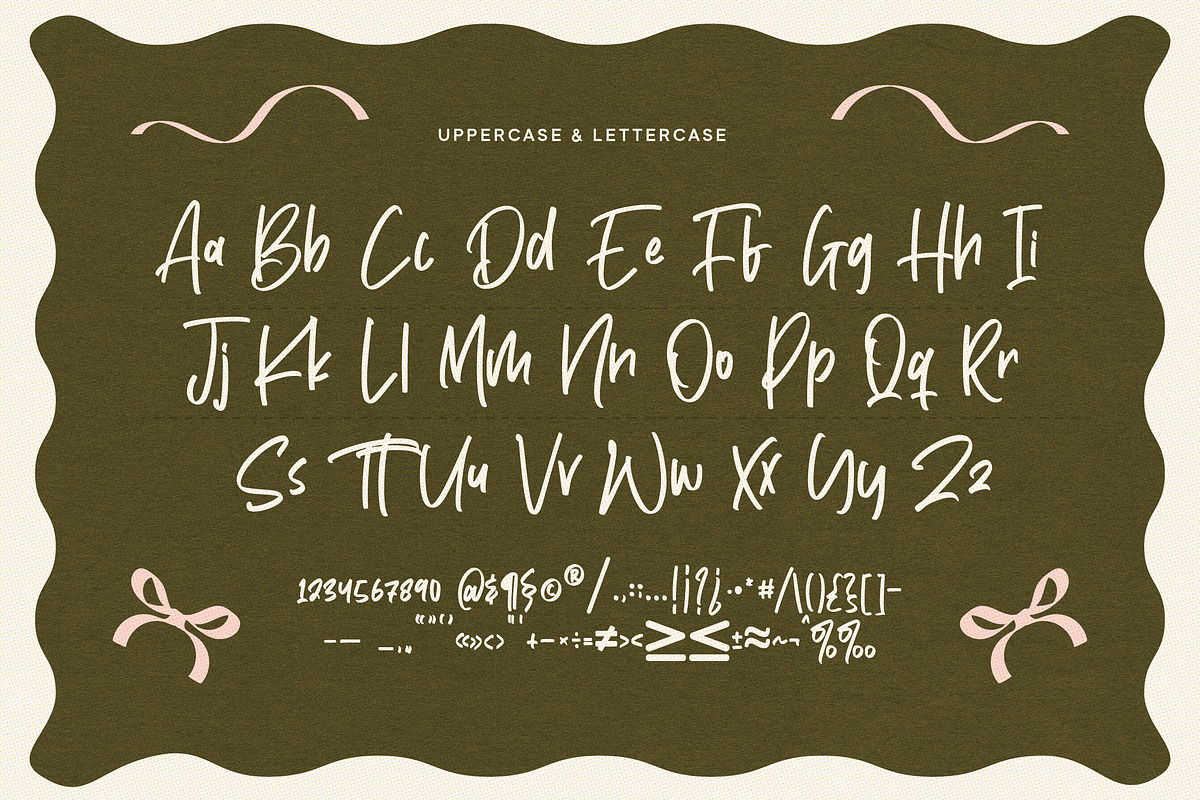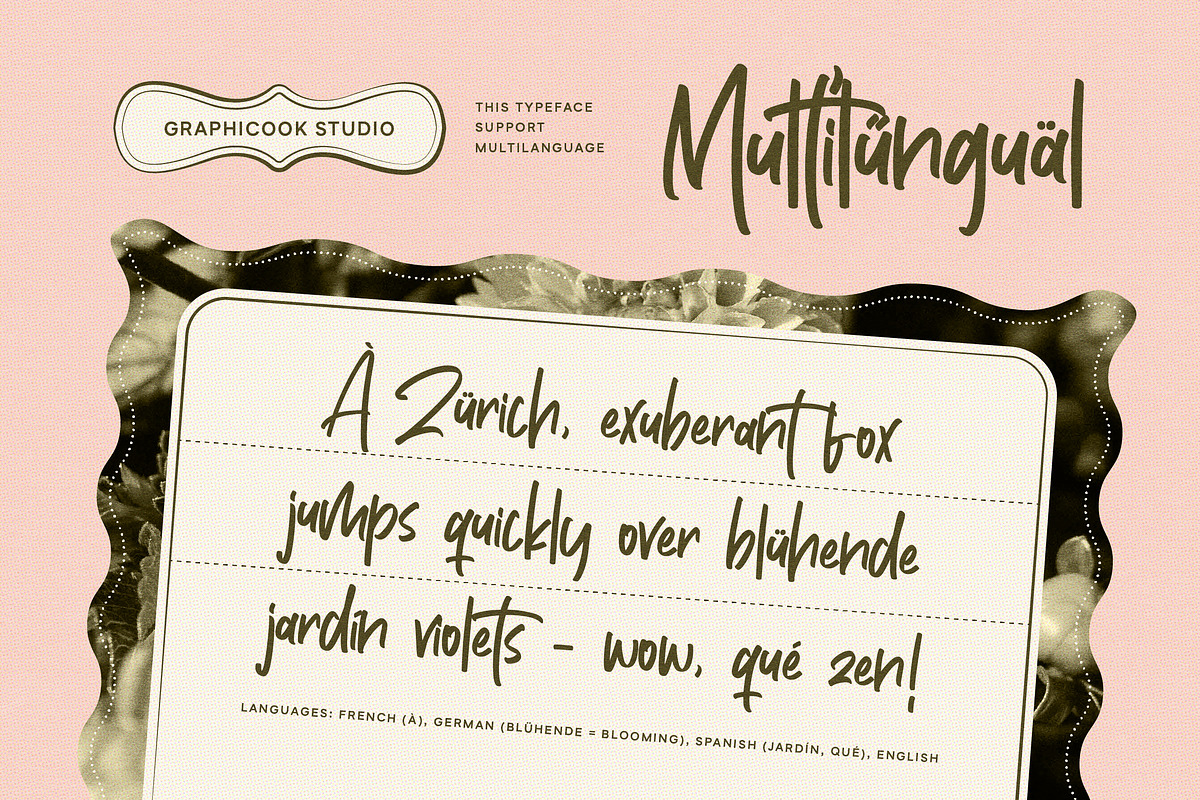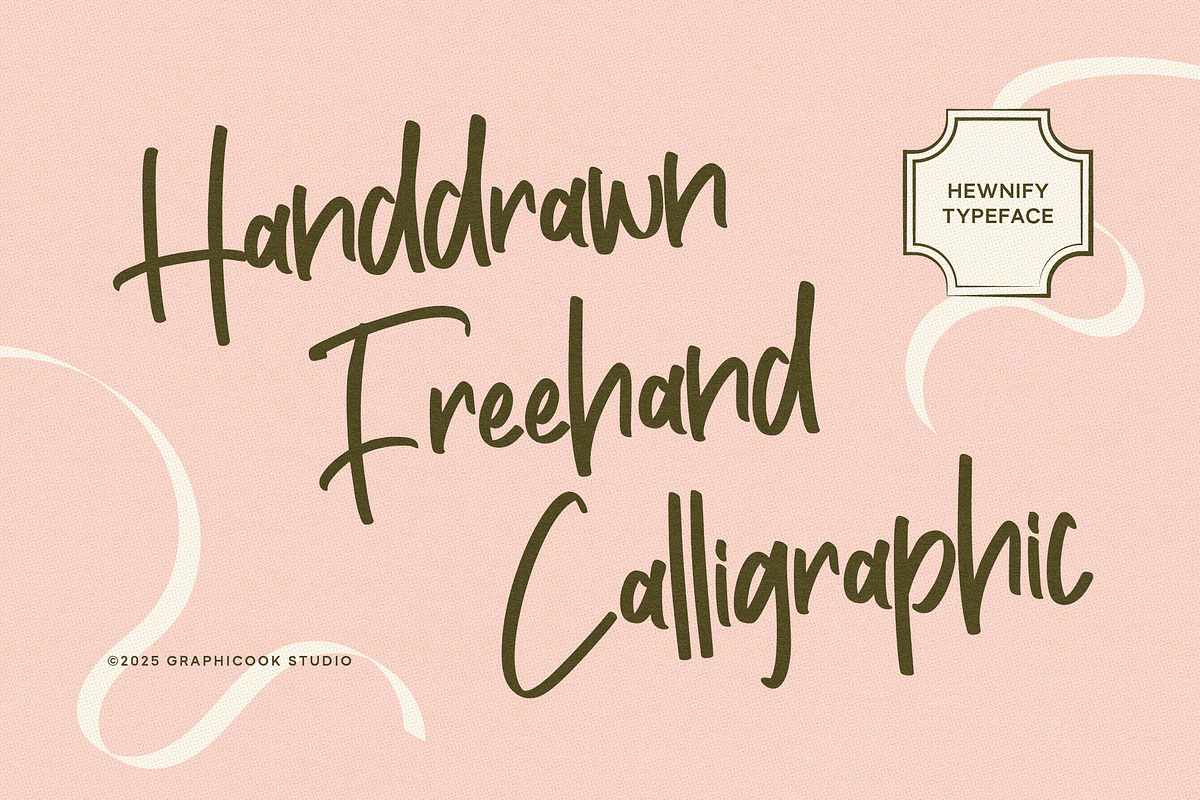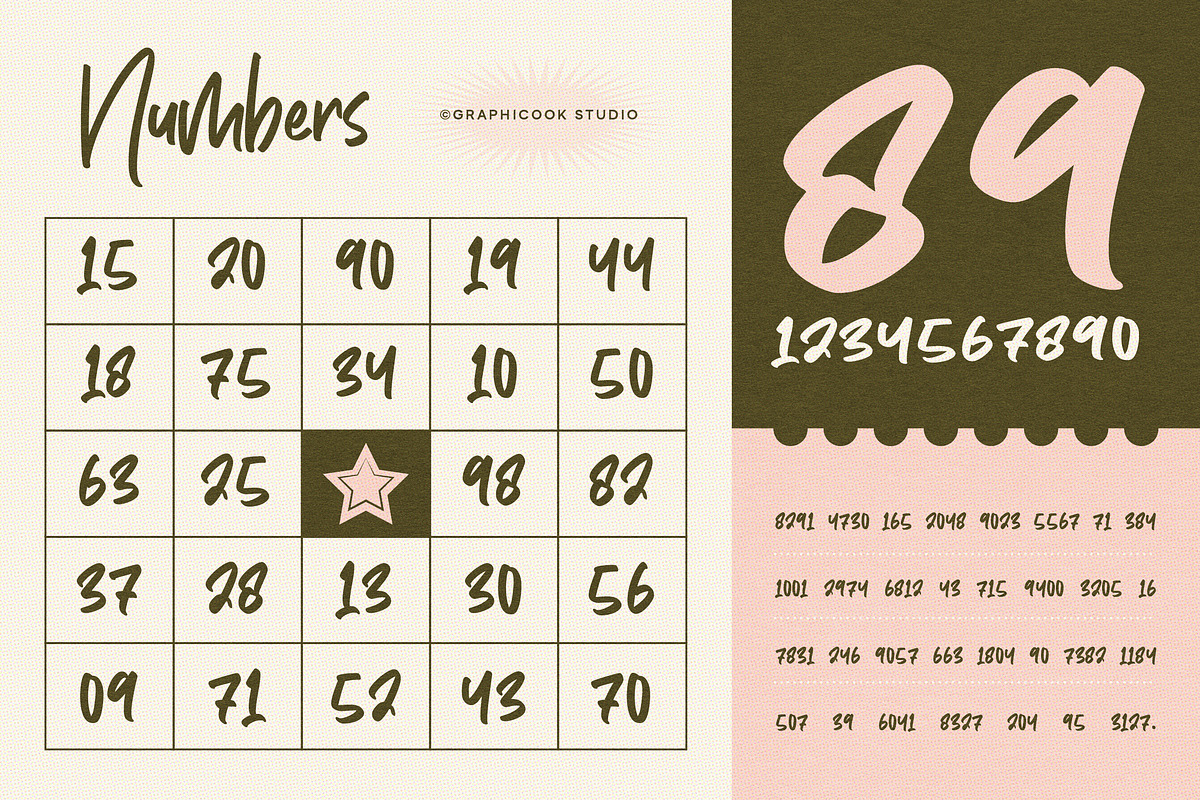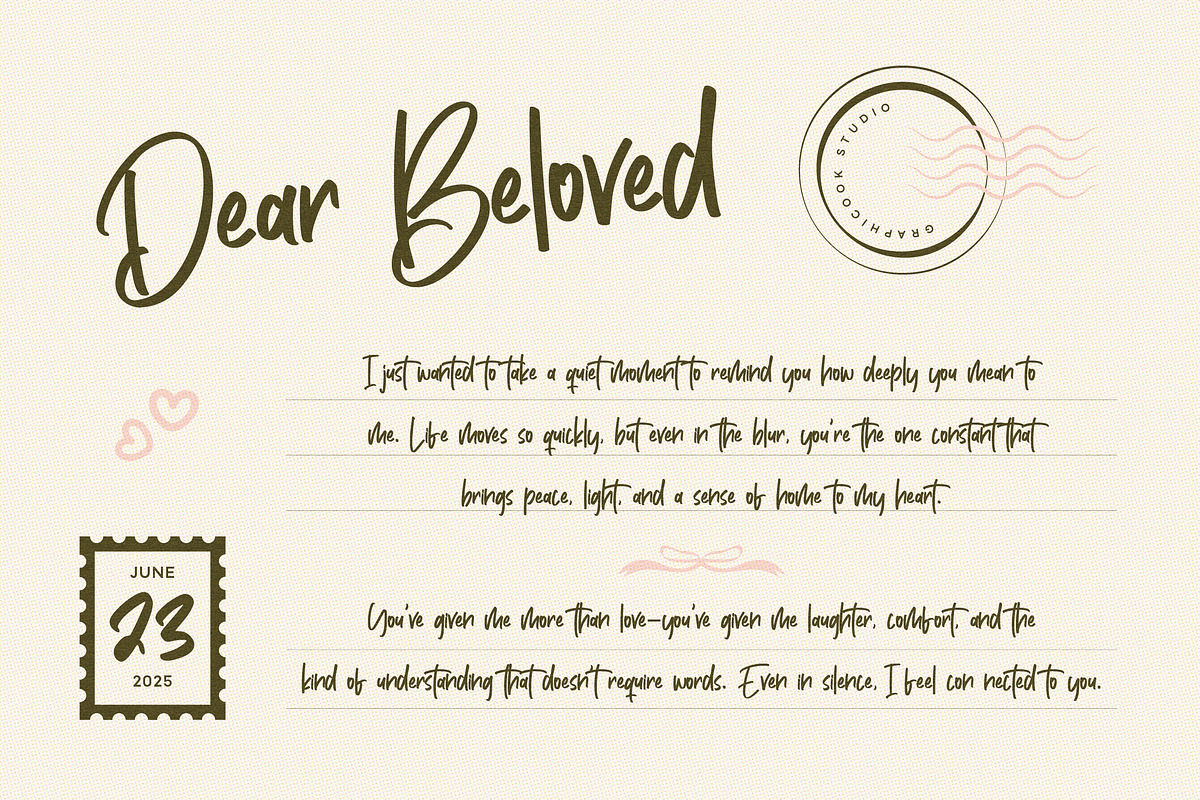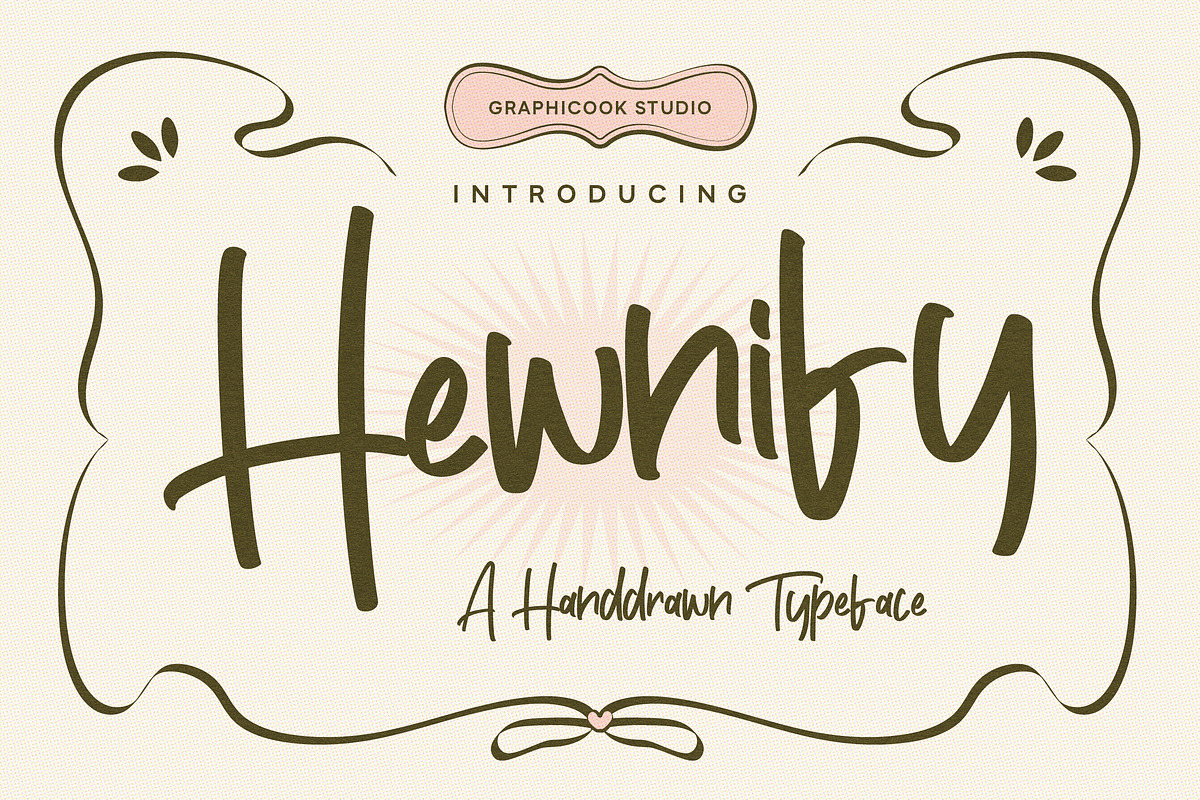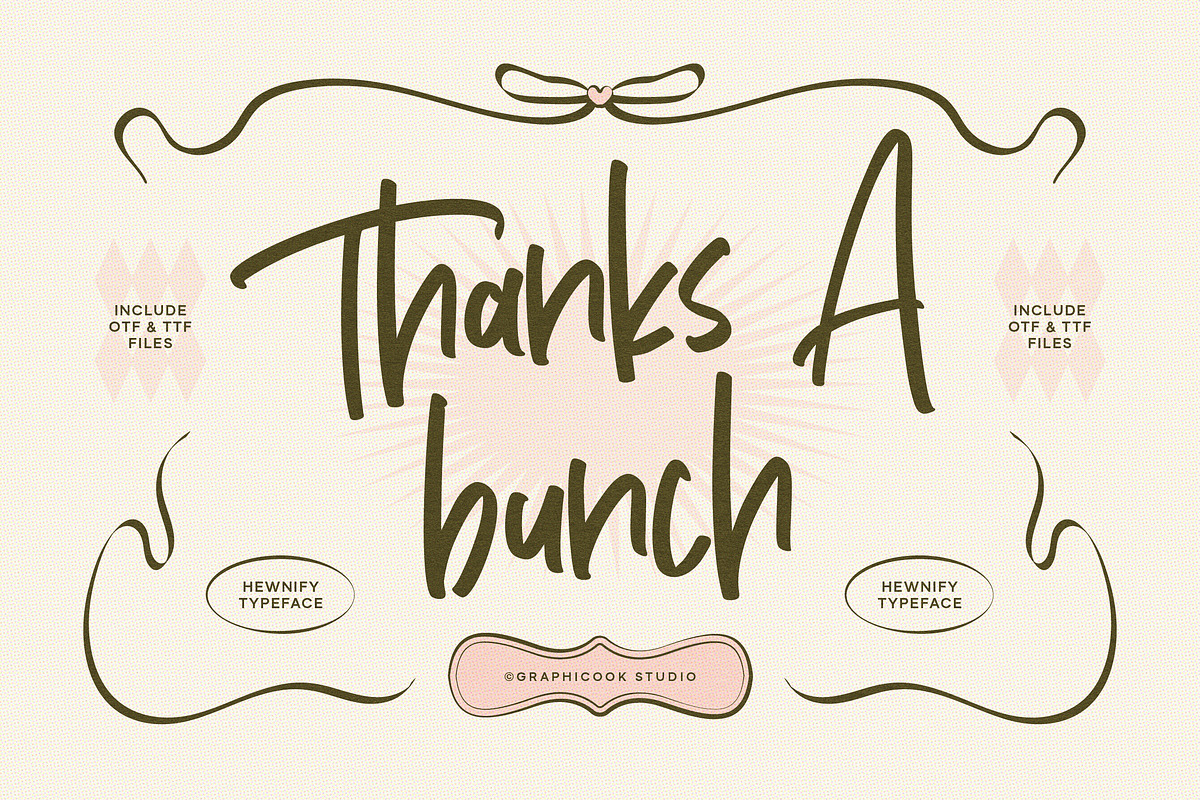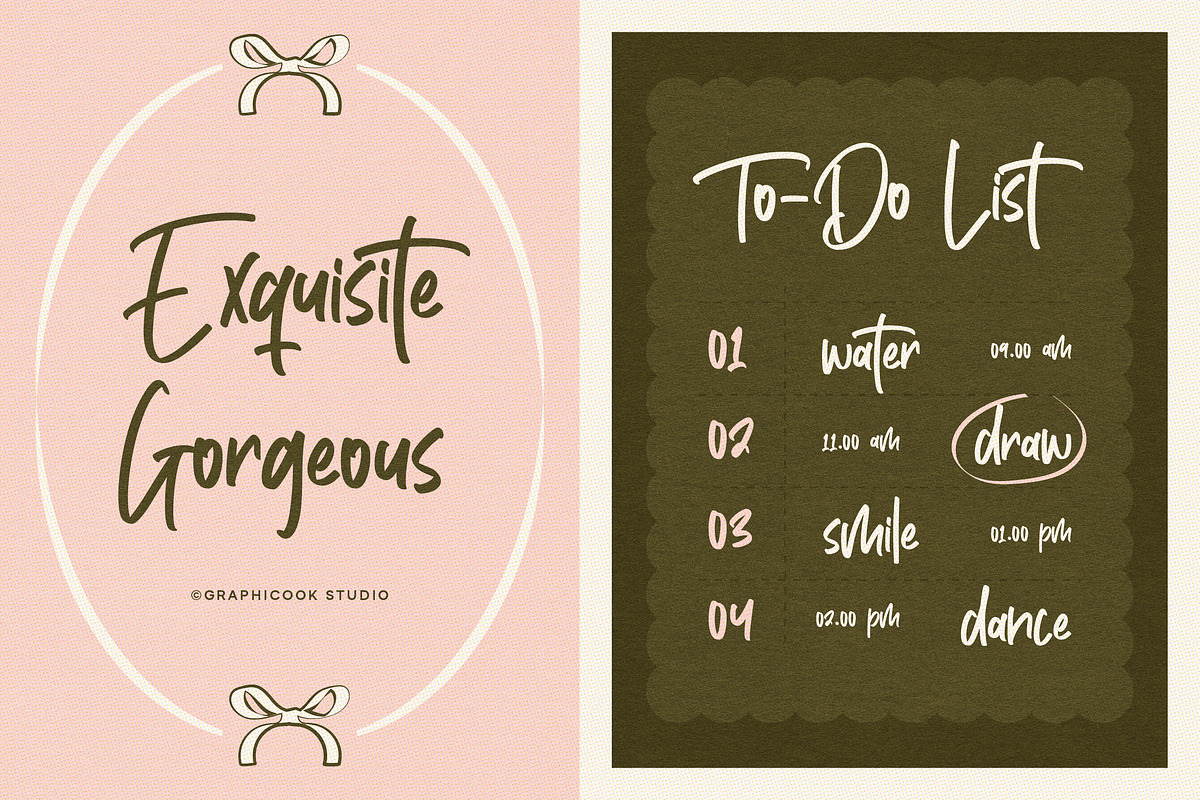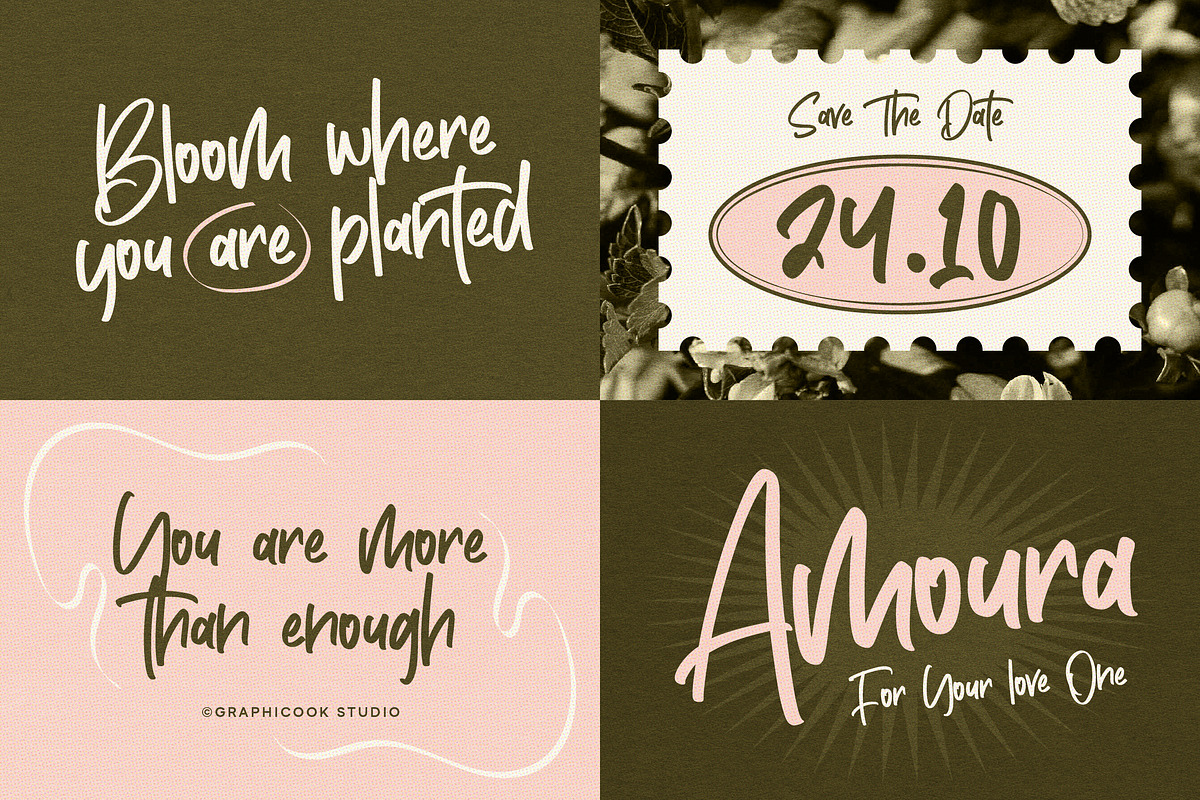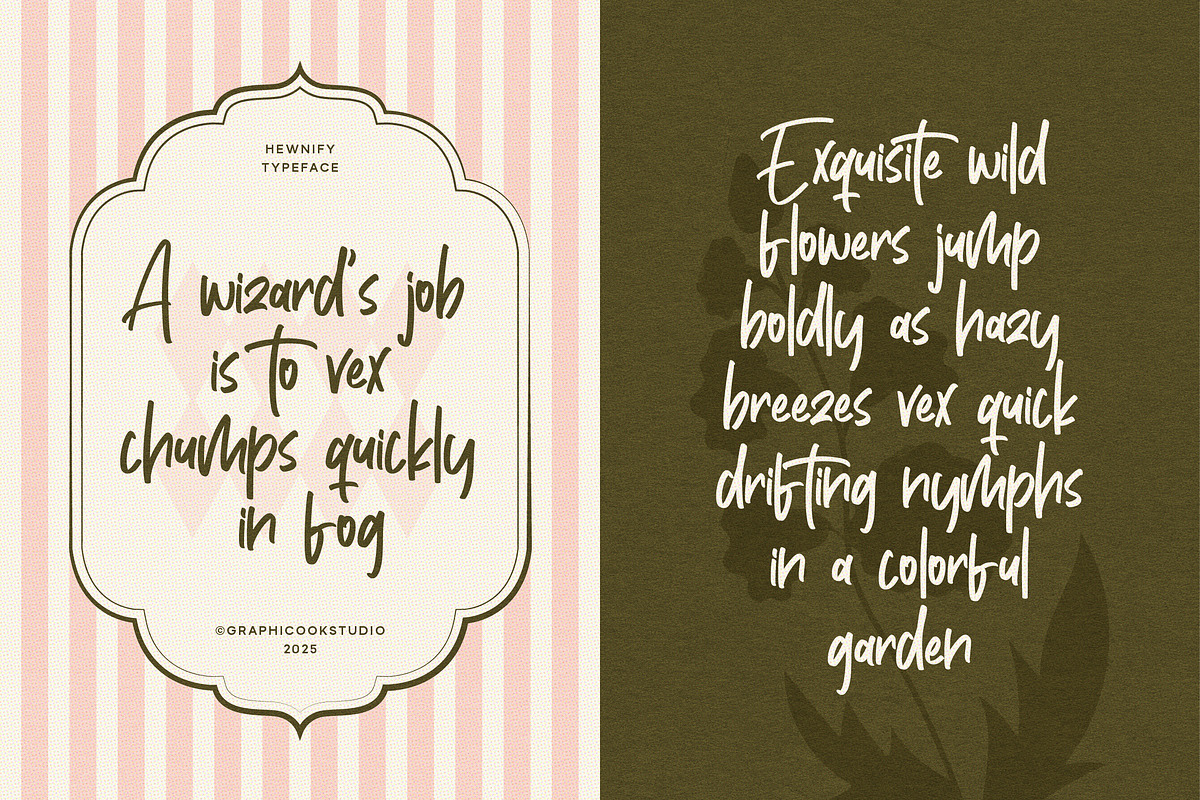
Hewnify
Hewnify is a hand-drawn script font with a unique form that balances playfulness and elegance. Ideal for feminine designs, handmade product branding, fashion, or skincare.
It is perfect for headlines, logotypes, magazines, packaging, quotes, movies, games, cover albums, book covers, and flyers, it's a perfect solution for creating eye-catching designs that stand out in any context.